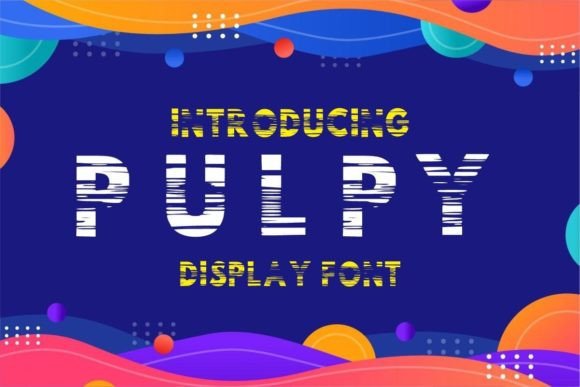
Introducing Pulpy Font - The Gateway to Eye-catching Travel Videos!
Embark on a visual journey with Pulpy Font, the ultimate display font for crafting captivating travel videos that ignite wanderlust. Pulpy's unique split-form design offers effortless access to a world of glyphs and scratches, empowering you to create dynamic and visually striking content that leaves your audience in awe.
Designed by Im.design.art, Pulpy is a cool, unique, and attractive decorative font that oozes personality. Its playful and energetic vibe is a perfect match for showcasing the beauty and diversity of your travel adventures. Whether you're a seasoned globetrotter or an armchair traveler, Pulpy will help you bring your stories to life with a touch of intrigue and inspiration.
With Pulpy as your creative companion, you can:
* Create eye-catching video titles that demand attention and set the tone for your travelogue.
* Craft engaging video captions that provide context and insight into your journey, enticing viewers to delve deeper into your experiences.
* Design visually stunning social media posts that capture the essence of your travels and leave your followers longing for more.
* Elevate your travel blog with captivating headers, subheads, and pull quotes that showcase your writing and photography in their best light.
Pulpy is not just a font; it's an invitation to explore the world through your creative lens. Its distinctive style and versatility make it the perfect choice for travel content creators, vloggers, and anyone looking to add a touch of adventure to their digital creations.